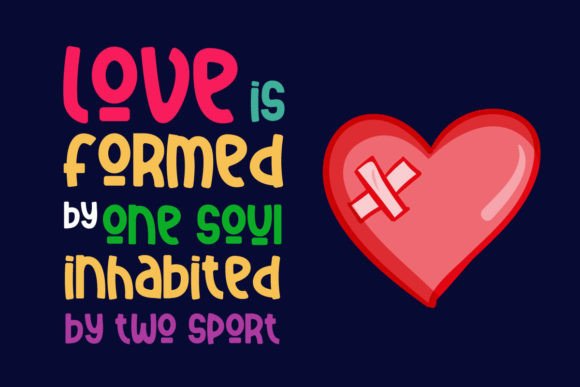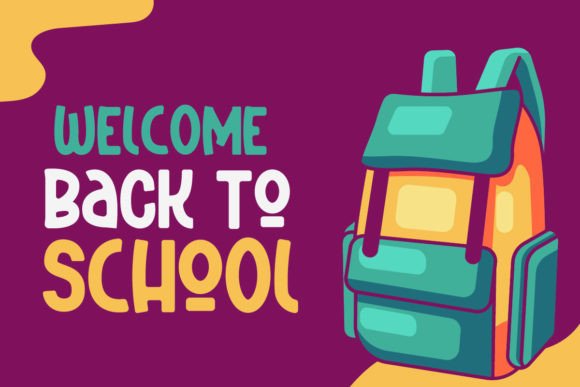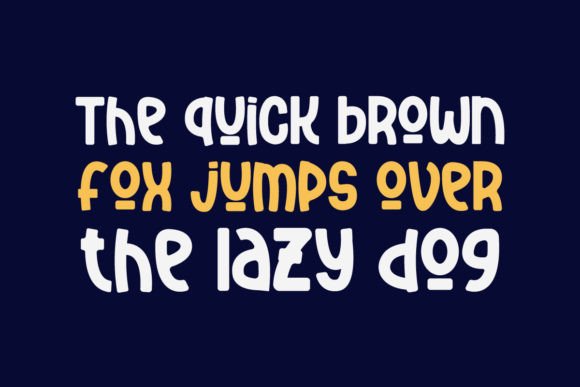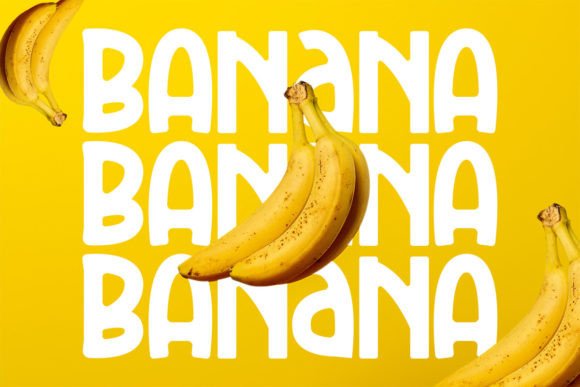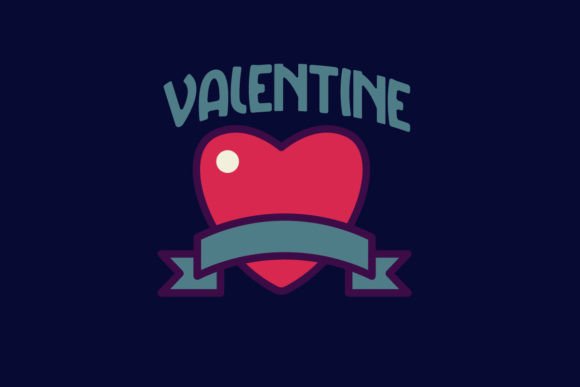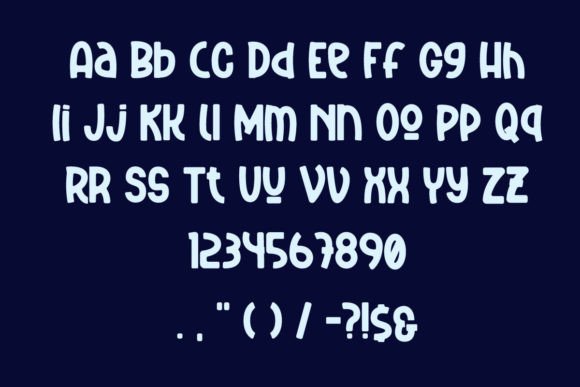
Introduction to Rakober Font
Rakober is a modern and fresh display font suitable for posters, logos, stickers, invitation cards, brochures, or anything that needs unique typography.
Rakober is a modern and fresh display font suitable for posters, logos, stickers, invitation cards, brochures, or anything that needs unique typography!
Key Features of Rakober Font
Why Choose Rakober Font?
Rakober Font offers exceptional quality and versatility, making it a valuable addition to your design toolkit. Whether you’re creating for personal projects or commercial use, Rakober Font delivers professional results.